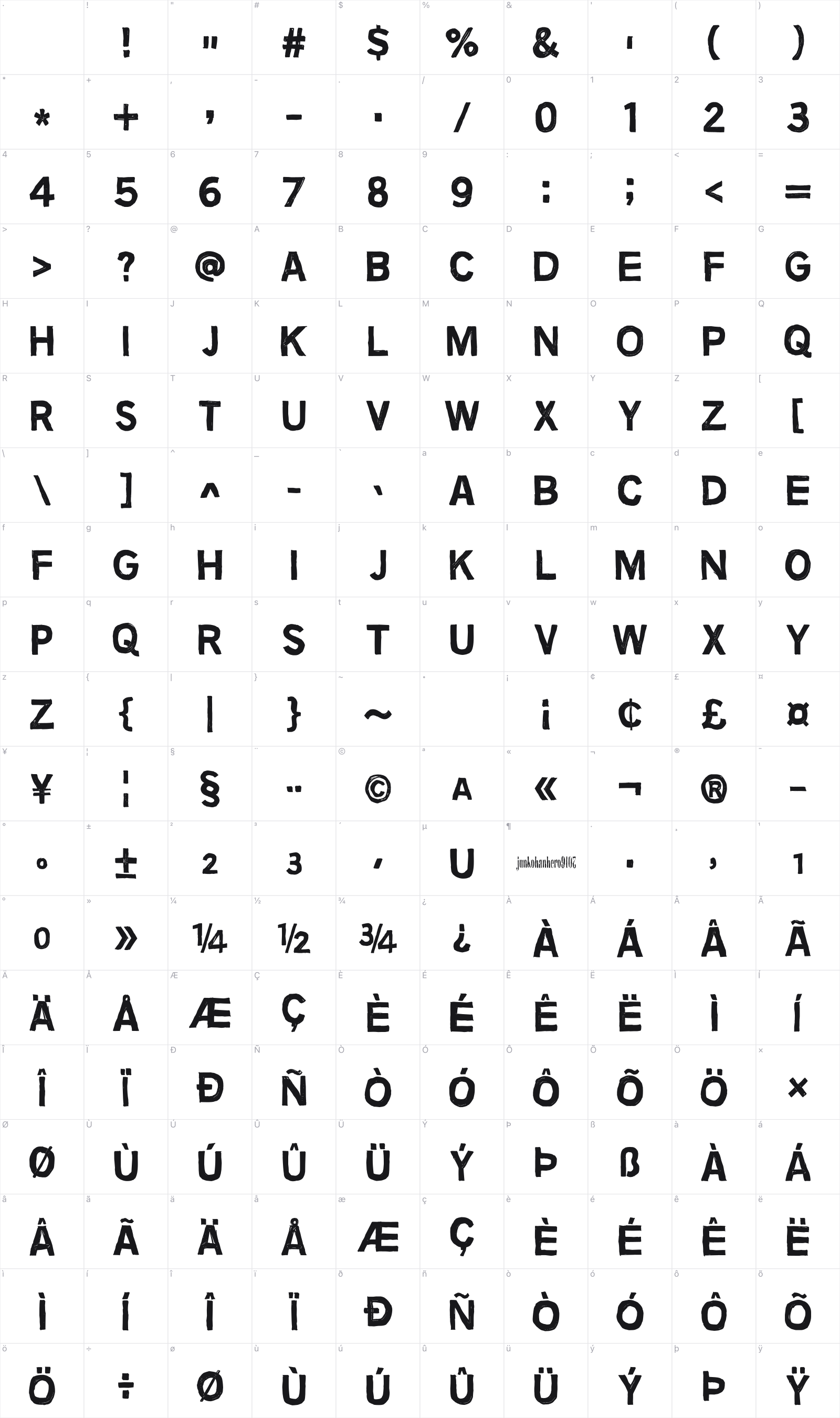
No more lies
No more lies is a bold, uppercase display face from junkohanhero with a raw, hand-drawn quality and heavily distressed textures that make every letter look like it was stamped in ink and then dragged through dirt. The rough, grungy edges give it an aggressive authenticity that works for punk flyers, protest posters, and editorial headlines where polish would undermine the message. It's loud on purpose, and legibility holds up surprisingly well despite all that visual noise.